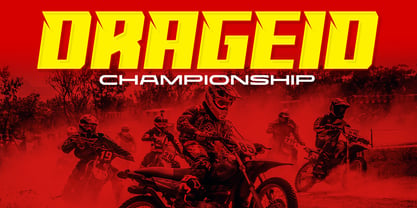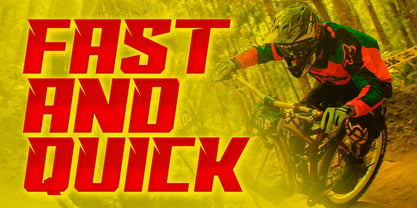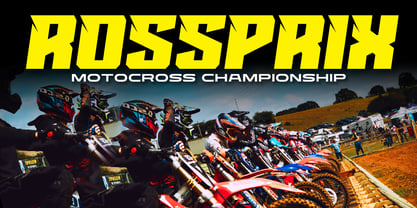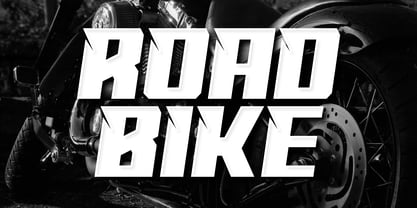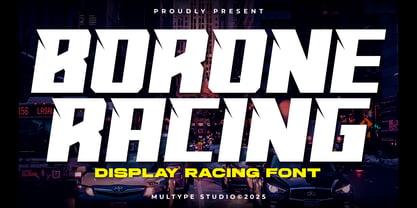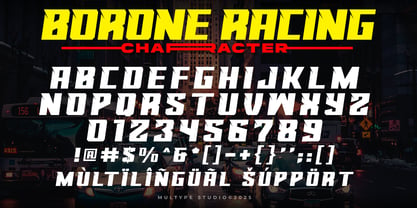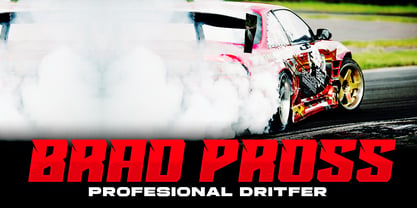
Borone Racing
La famille de polices Borone Racing a été conçue par Mulia Yanto et publiée par Multype Studio. Borone Racing contient 1 styles. En savoir plus sur cette famille
Borone Racing Font is a racing-themed font. With a bold style, strong, consistent in sharp corners, and looks good because it maximizes its shape to look strong, fast, and powerful. Borone Racing Font it’s perfect for logotype racing product, racing game covers, sports events, automotive posters, automotive magazine covers, branding, product design, labels and other creative project. What’s Included : All Caps Number Punctuation Works on PC / Mac Simple installations Accessible in the Adobe Illustrator, Adobe Photoshop, Adobe InDesign, even work on Microsoft Word PUA Encoded Characters, Fully accessible without additional design software. Multilingual support Thank you for your purchase! Hope you enjoy with our font!